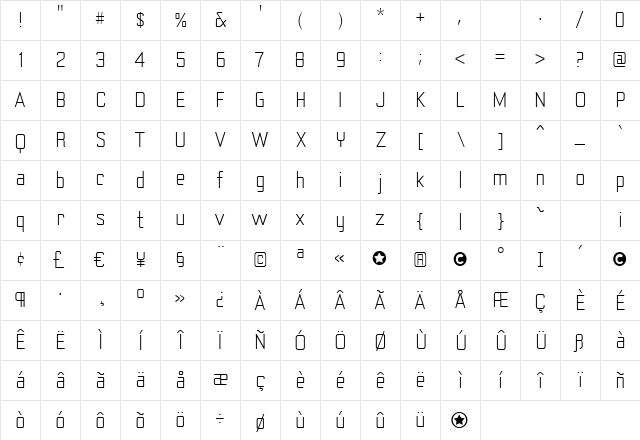
YearlingLite Regular Free Font
YearlingLite Regular
Design Context for YearlingLite
YearlingLite is a composed and adaptable typeface that performs quietly and consistently across a wide range of design contexts.